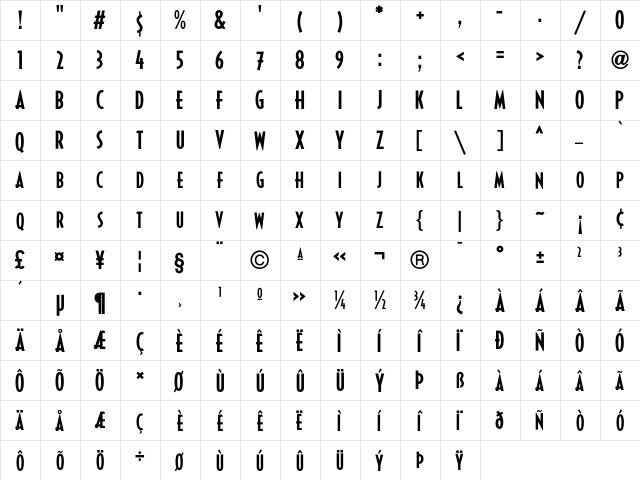
DecoturaICG Regular
Design Context for DecoturaICG Typeface
DecoturaICG is a composed and adaptable typeface that performs quietly and consistently across a wide range of design contexts.